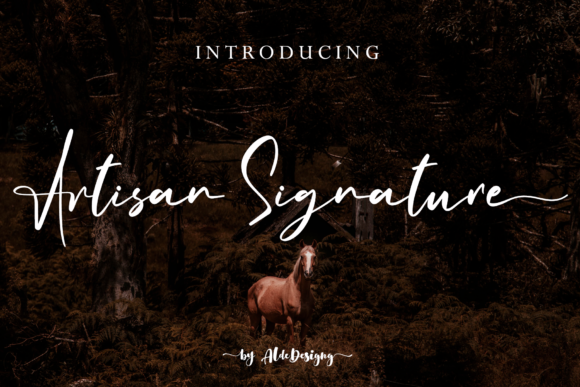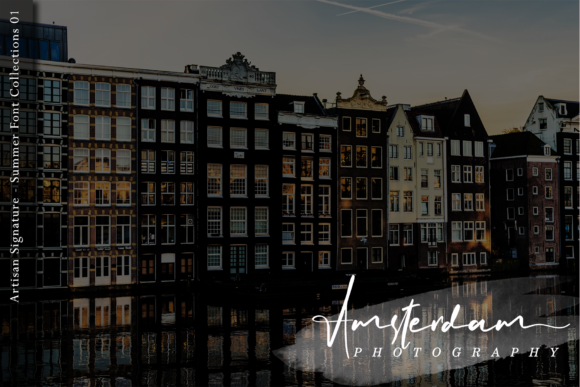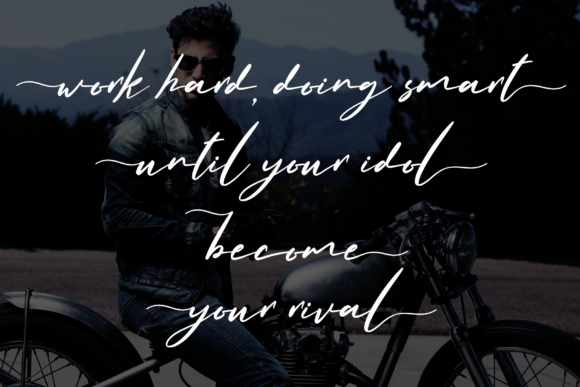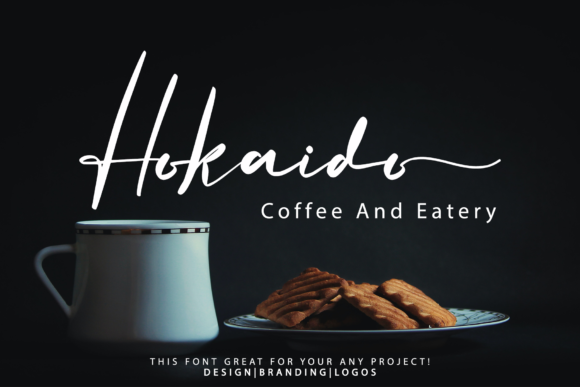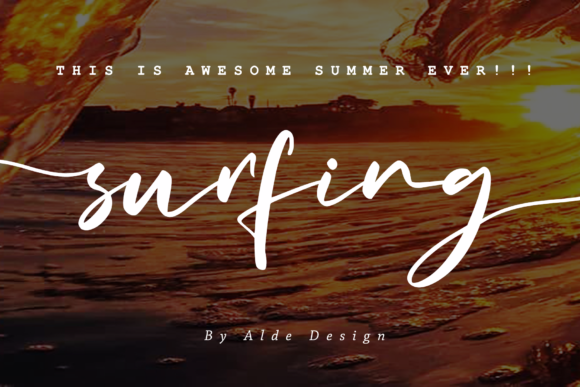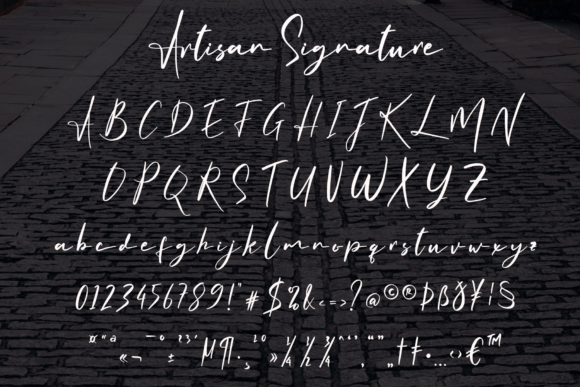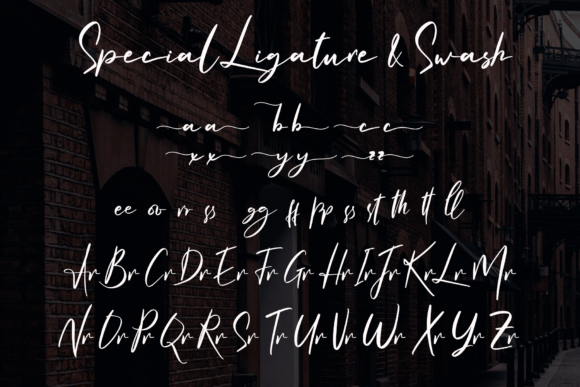
About Artisan Signature Font
Artisan Signature is a beautiful light handwritten font with a unique feel and a stunning impact. It will add a luxury spark to any design project that you wish to create!